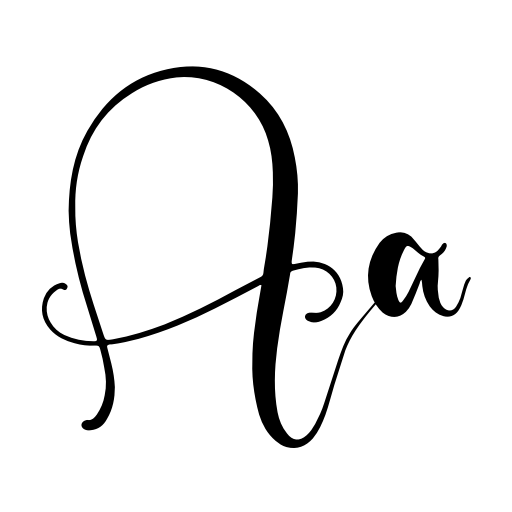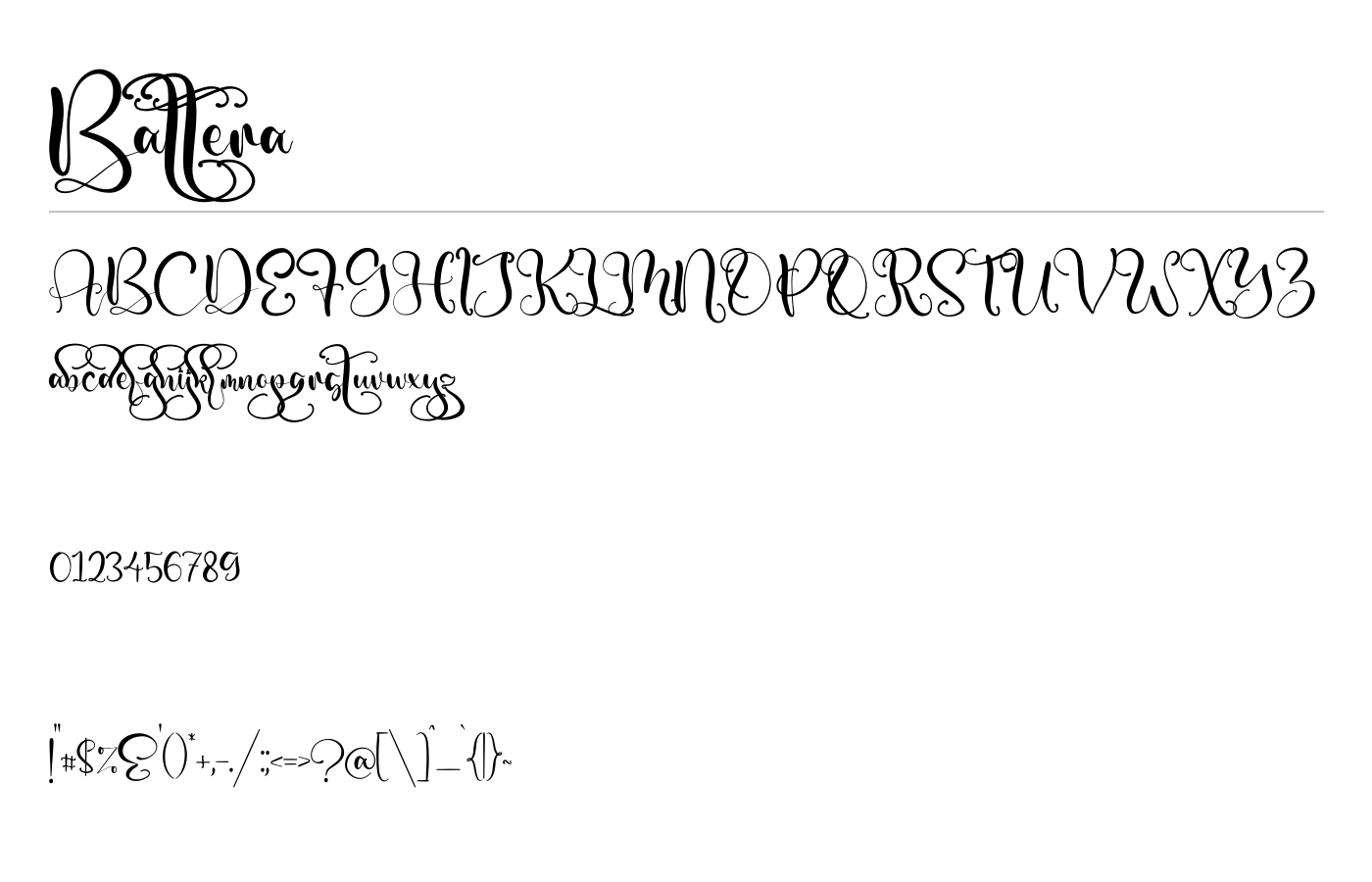
Battera is an elegant, decorative script font with intricate, flowing swashes that give it a luxurious and artistic feel. Its thin, delicate strokes and highly stylized letterforms make it perfect for invitations, branding, and projects that require a sophisticated and creative touch. This font works best in large sizes where its ornamental details can truly shine.
Battera Font
About Battera Font
| Designer | Nanang Jamaludin |